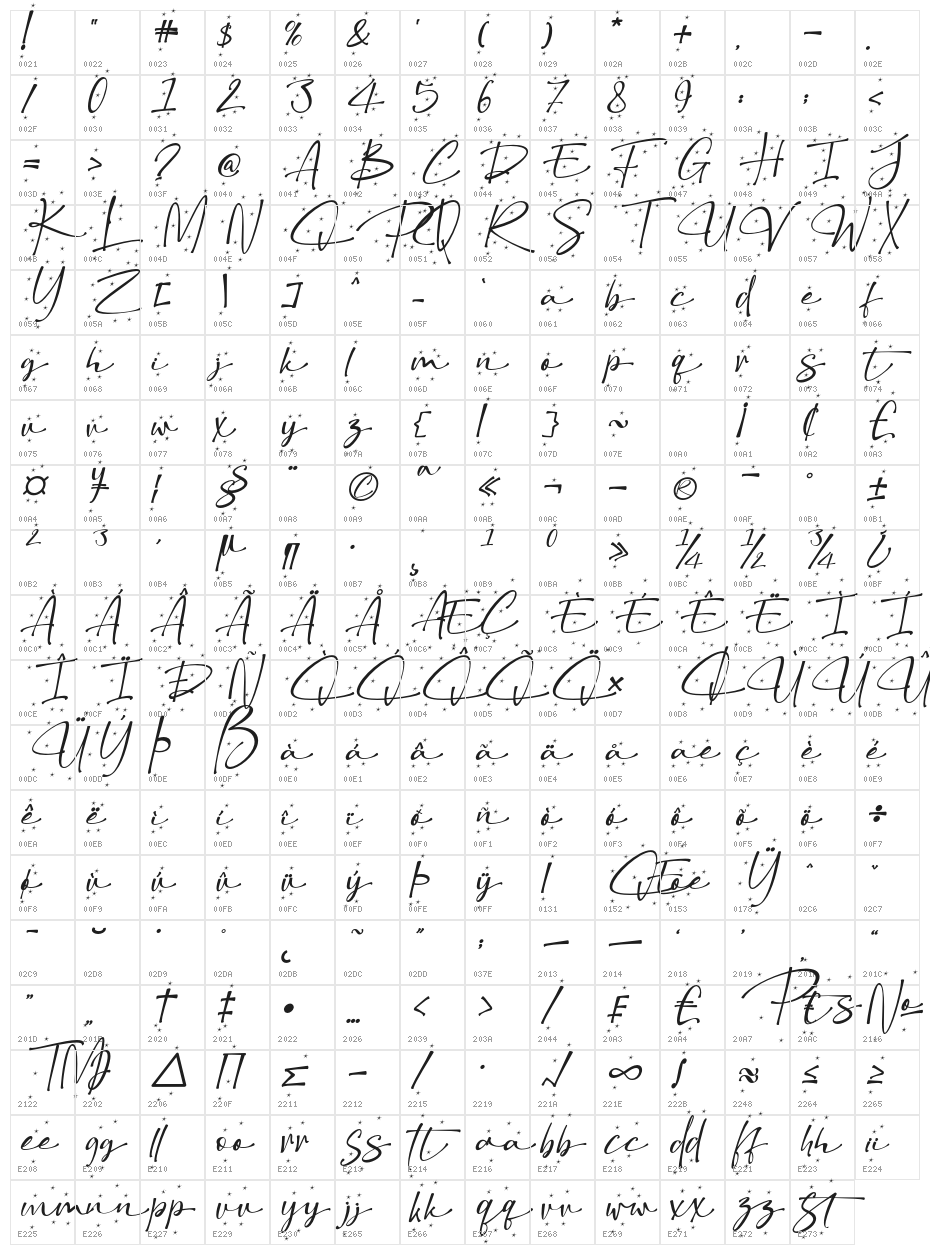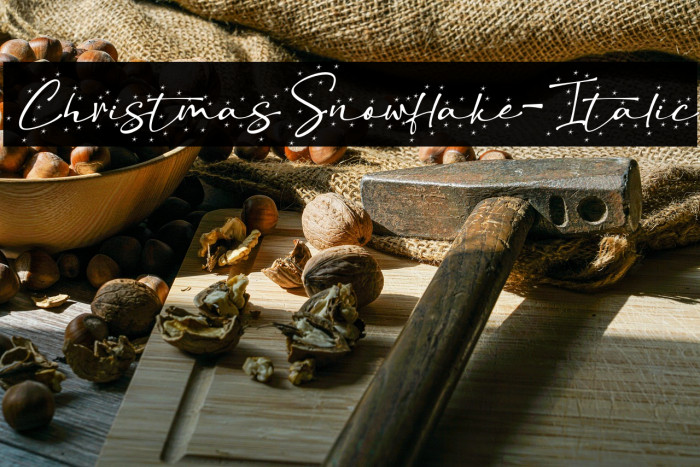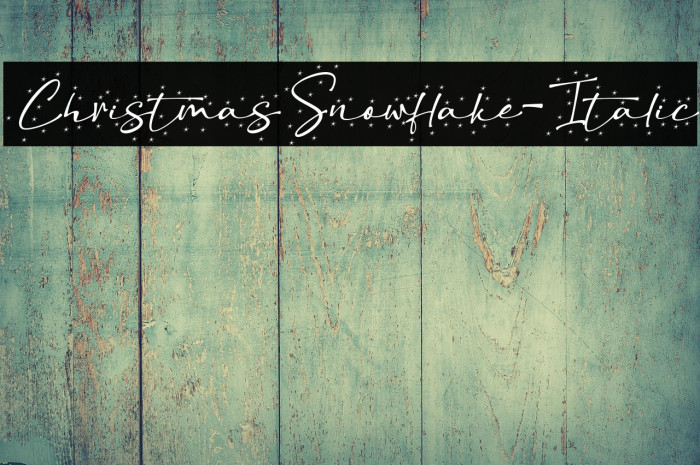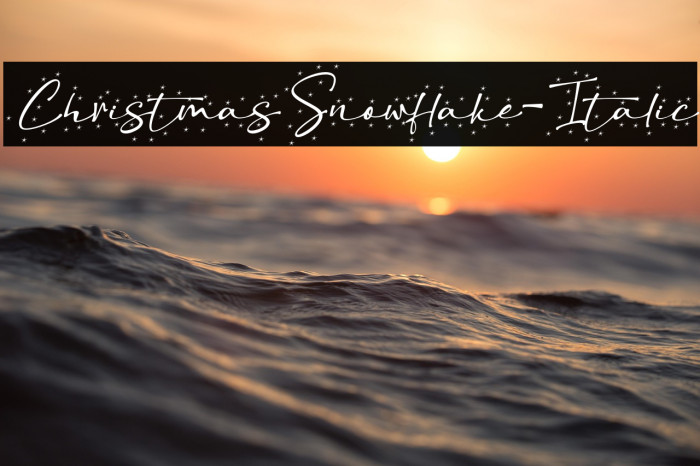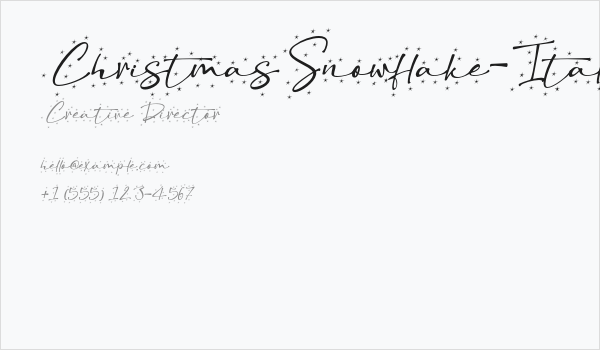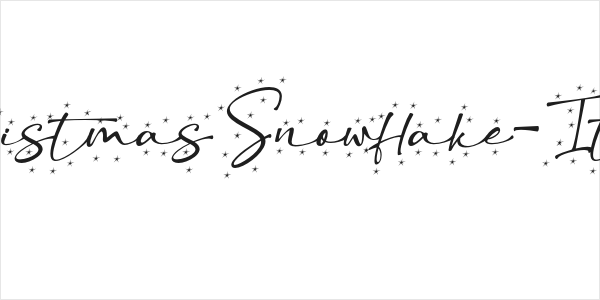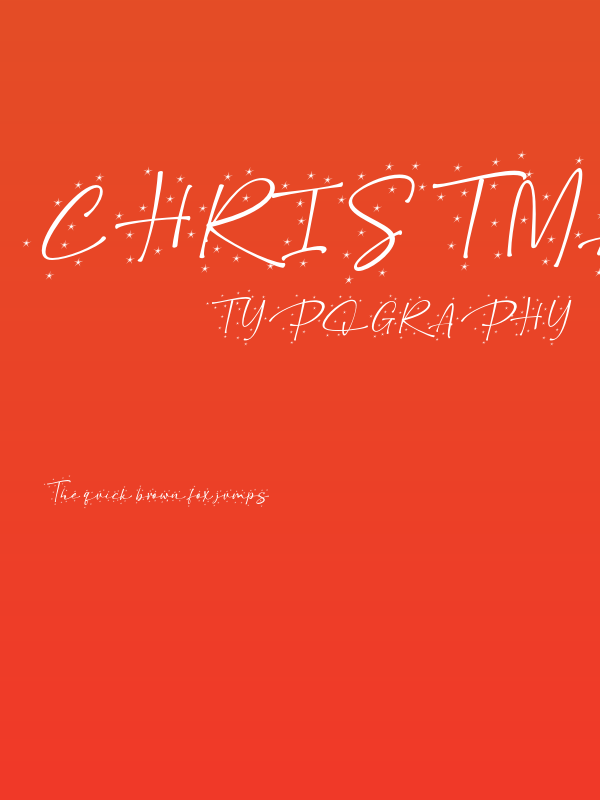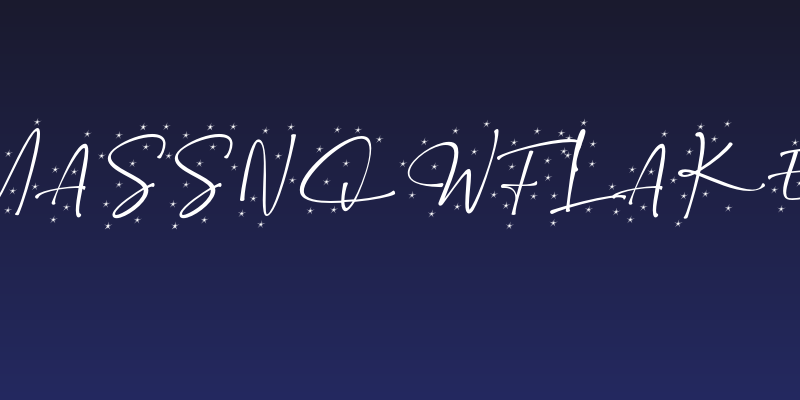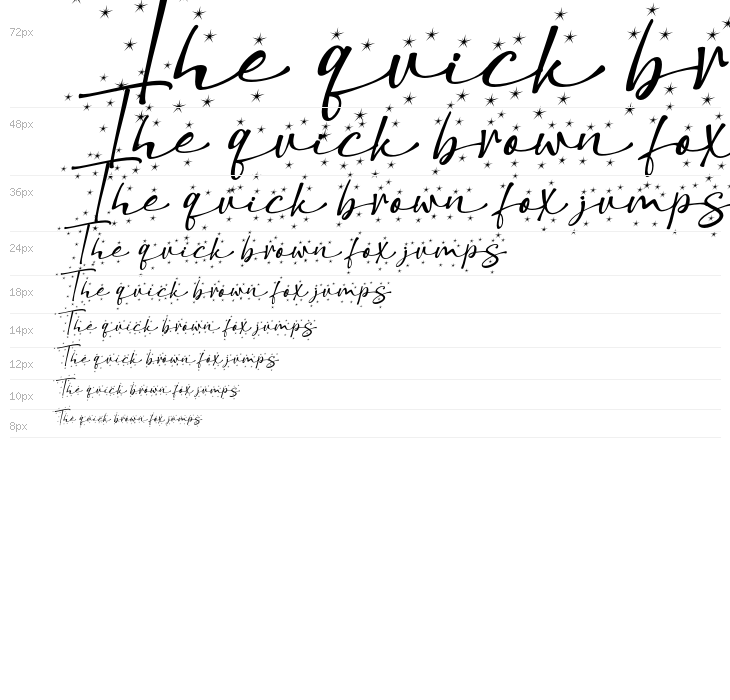
ChristmasSnowflake-Italic Font
ChristmasSnowflake-Italic Description
This whimsical and festive font features a playful script style adorned with delicate snowflake accents. Each character is elegantly italicized, giving a sense of movement and fluidity. The letters are interconnected, enhancing the handwritten feel, while the snowflakes add a touch of holiday charm. The font maintains a consistent stroke width, ensuring readability despite its decorative elements. Perfect for seasonal projects, it captures the essence of winter festivities with its unique and artistic flair.
| Proposed Projects | Ideal for holiday cards, festive invitations, seasonal branding, and decorative posters. |